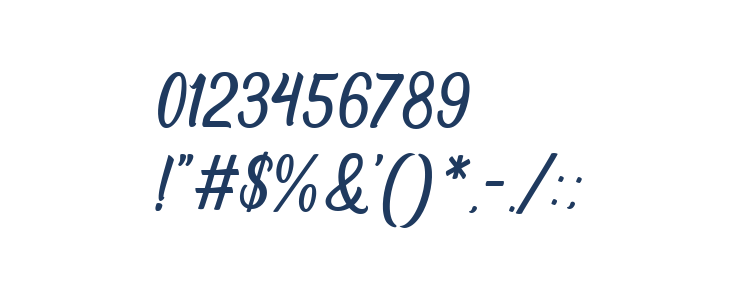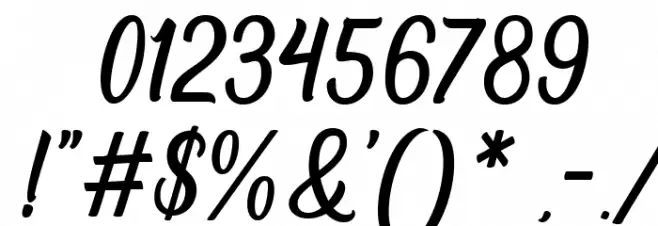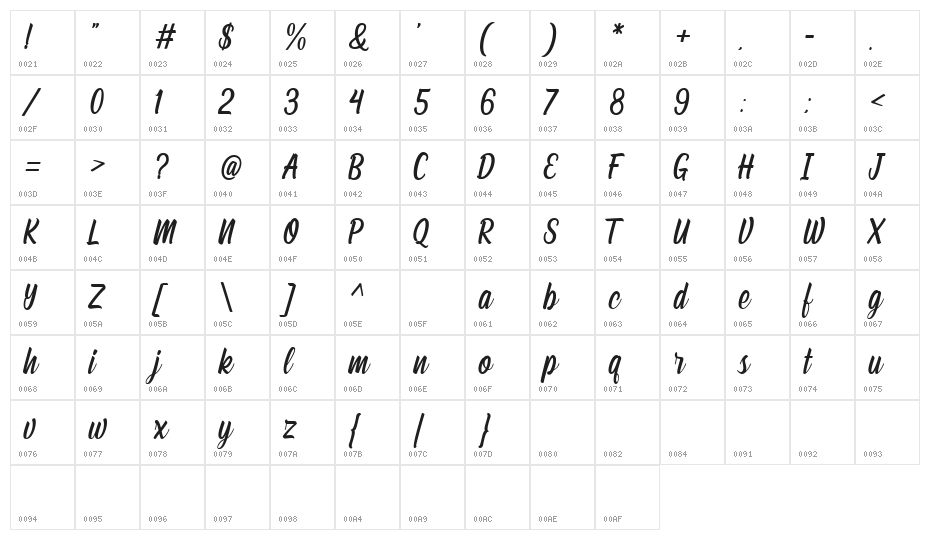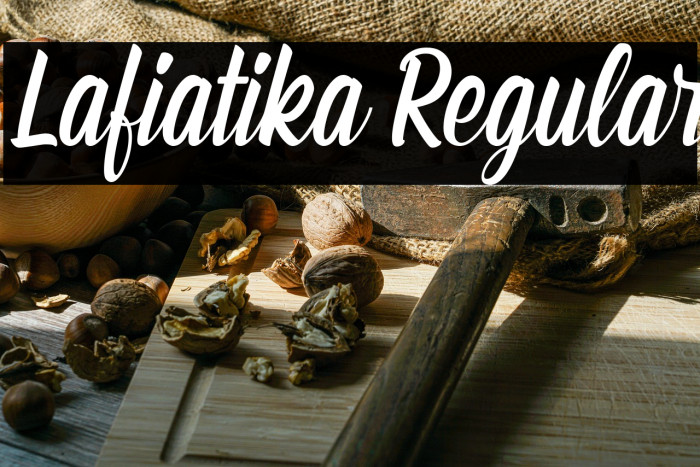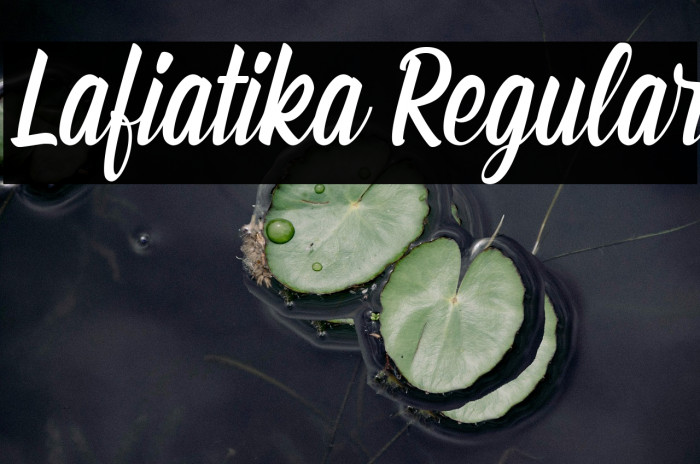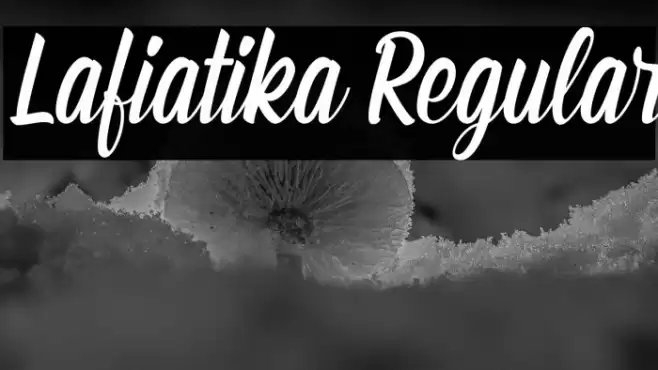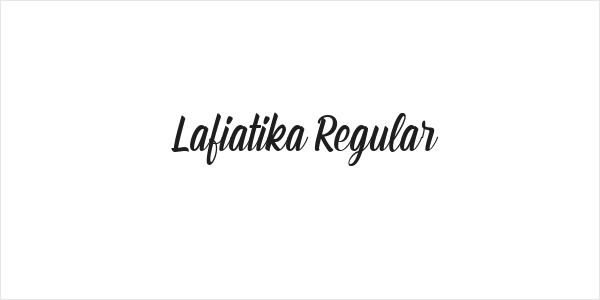
Lafiatika Regular Font
Lafiatika Regular Description
This font features a dynamic and flowing script style, characterized by its elegant and smooth curves. The letters are slightly slanted, giving a sense of movement and fluidity. The uppercase letters are bold and prominent, while the lowercase letters maintain a consistent flow, enhancing readability. The numerals are well-proportioned, fitting seamlessly with the overall design. Special characters are crafted with the same attention to detail, ensuring they complement the alphabetic characters. This font exudes a sense of sophistication and creativity, making it suitable for a variety of design projects.
| Proposed Projects | Ideal for wedding invitations, branding, logo design, and elegant packaging. |